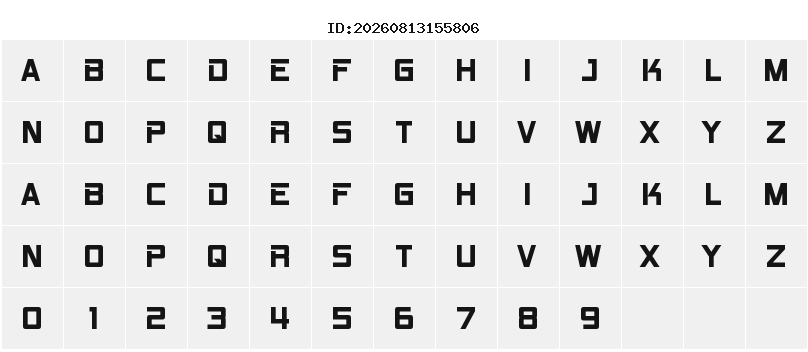
• Font Name: RPM
• Font ID: RPM Bold:Version 1.00
• Full Font Name: RPM Bold
• Version: Version 1.00 June 10, 2015, initial release
• Designer: Neale Davidson
• Manufacturer: Pixel Sagas
About RPM.otf
RPM.otf is a modern, elegant sans-serif font designed for ultimate readability and visual harmony. Perfect for branding, headlines, web design, and print materials.